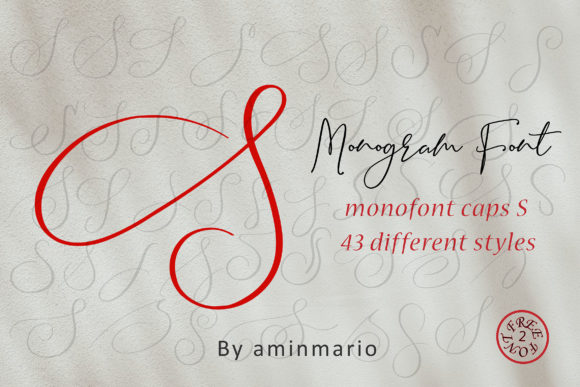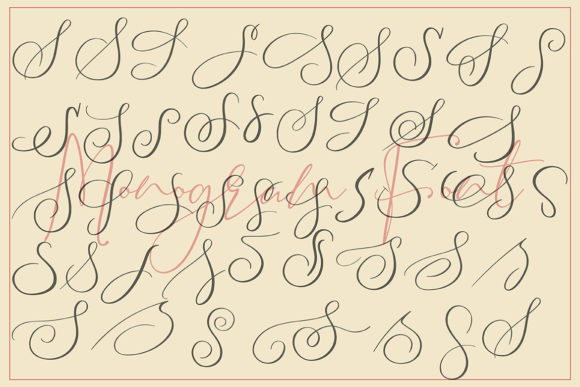
Monogram S | Monofont Caps S Font
About Monogram S | Monofont Caps S Font
This MONOGRAM is natural handwriting of capital S with 36 different styles.
This is not for writing words or sentences, but for monograms. Bonus 2 Font that contains the uppercase and lowercase to support it.